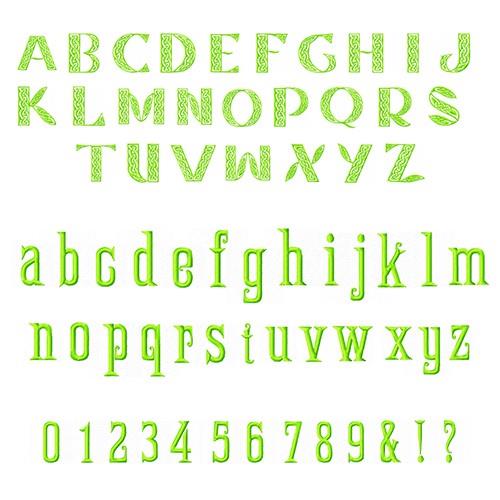
Celtic design embroidery font showcases uppercase letters adorned with intricate patterns, ideal for adding charm to banners and home decor. Available in PES, DST, and 6 other formats for versatile projects.